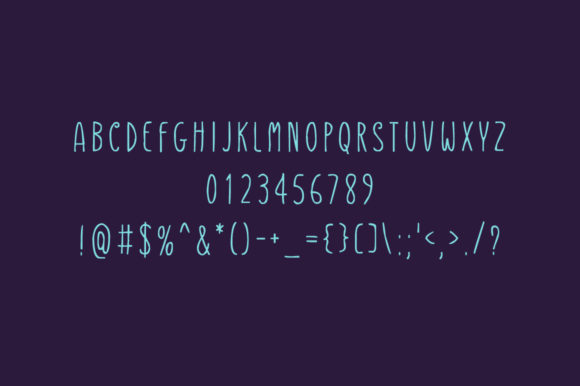
Unleashing Your Creativity with the Goodlier Font
You know that moment when you’re brainstorming ideas for a new project, and the perfect font suddenly pops into your mind? For designers, it’s a thrill that never gets old. That’s exactly what happened when the Goodlier Font was born – a brand new handwritten font that’s about to revolutionize the way we communicate our creativity.
Designed with versatility in mind, the Goodlier Font is the ultimate tool for any designer looking to add a personal touch to their work. Whether it’s a custom logo, a flyer, or a website header, this font is perfectly suited for a wide range of applications – from stationery and print designs to music covers and image sliders. With the Goodlier Font, designers can now bring their unique vision to life in a way that’s both elegant and effective.
Goodlier Font Key Features
- Font Family: Goodlier Font comes in three font families: Regular, Italic, and Bold, providing users with flexibility in their design choices.
- Unique Characteristics: The Goodlier Font features a unique blend of modern and traditional design elements, with intricate details and subtle flourishes that add a touch of elegance to any design.
Goodlier Font Review
Overall, I think the Goodlier Font is a solid choice for designers looking for a modern and elegant typeface. Here are some of the things that I like about it: ✨
- Unique and interesting character shapes, which add a touch of personality to any design.
- Good readability, even at smaller font sizes.
- Works well in both digital and print media.
- Has a wide range of weights and styles, making it easy to find the perfect fit for any design.
- The font can feel a bit overused, which may make it harder to stand out in a crowded design landscape.
- Some of the characters may not be as legible as they could be, particularly at very small sizes.
- The font may not be suitable for all types of designs, particularly those that require a more formal or traditional look.
Overall, I think the Goodlier Font is a great choice for designers who want a modern and stylish typeface that can add some personality to their designs. While it may have some limitations, I think it’s well worth considering for your next project.
Getting the Most Out of Goodlier Font
For the best results, use Goodlier Font in conjunction with high-contrast backgrounds and bold, eye-catching graphics.
Goodlier Font is ideal for use in modern, minimalist designs, such as business cards, flyers, and social media graphics.
Alternatives to Goodlier Font for Designers
Monserrat Font is a sans-serif font that originated from Buenos Aires. It’s ideal for use in modern designs, especially in titles and headings. Montserrat Font is more geometric and sleek compared to Goodlier Font, which makes it perfect for minimalist designs.
Lato Font is a sans-serif font that is highly legible and versatile. It’s suitable for use in body text, titles, and even as a display font. Compared to Goodlier Font, Lato Font is more rounded and has a softer feel, making it ideal for designs that require a more approachable tone.
Q: Is Goodlier Font optimized for digital use?
Yes, Goodlier Font is carefully optimized for digital use, including web, mobile, and screen design. The font is designed to be clear and readable at various font sizes and resolutions, ensuring that your designs look great on any device.